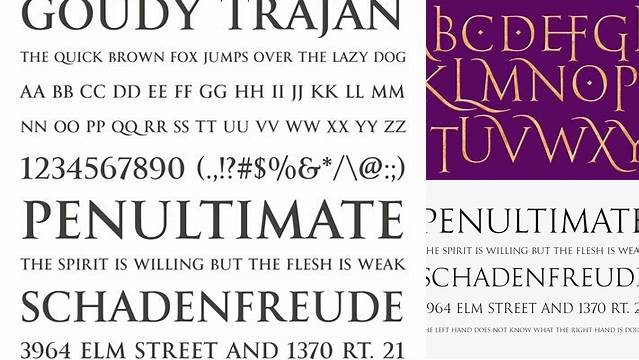
Goudy Trajan font free download is a popular choice for designers, typographers, and anyone looking to add a touch of classic elegance to their projects. This article will guide you through everything you need to know about the Goudy Trajan font, including where to find a free download, its history, and how to use it effectively. So, if you're looking for a font that exudes sophistication and timelessness, you've come to the right place, my friends! Let's dive in.
Understanding the Goudy Trajan Font
Before we get into the Goudy Trajan font free download, let's talk about what makes this font so special. Goudy Trajan, as the name suggests, is inspired by the Trajan Column in Rome. This column, built in 113 AD, features inscriptions carved in a beautiful, highly refined style of Roman square capitals. The font captures the essence of these inscriptions, making it a perfect choice for projects that require a classic and historical feel. The font is characterized by its clean lines, serifs, and balanced proportions. It's a versatile font that can be used in a variety of contexts, from headings and titles to body text (though it's generally best for display purposes). The design of the font is a testament to the enduring appeal of Roman typography. The meticulous attention to detail in the original Trajan inscriptions is mirrored in the font, giving it a sense of authority and elegance. This is why it remains a favorite among designers. It is not just a font; it's a connection to history and a statement of refined taste. When you choose Goudy Trajan, you're not just picking a typeface; you're embracing a legacy of design excellence. It's a fantastic choice for branding, where a sense of tradition and quality is essential. The font's legibility and aesthetic appeal ensure your message is conveyed with both clarity and style. So, whether you are crafting a logo, designing a website, or creating print materials, Goudy Trajan is an excellent option to consider. This font is more than just a visual element; it communicates a story, evoking feelings of heritage, trust, and timelessness. The font is very well-suited for use in projects such as wedding invitations, book covers, and historical documentaries, where a sense of authenticity and classic style is paramount. The crispness of the characters makes it highly readable, even at a distance, which is very critical for those who are using it as a display font. Goudy Trajan also offers great flexibility. The font comes in various weights and styles, providing designers with a wide range of options to suit different design needs. It is very important to choose the right weight and style of the font to achieve the desired effect. This adaptability makes it a valuable asset for any designer. Furthermore, because of its timeless design, Goudy Trajan never goes out of style. This is important in the fast-changing world of design, where trends come and go quickly. This font will stay relevant, ensuring your designs remain fresh and appealing for years to come. The use of this font will show the quality that you are looking for. Choosing Goudy Trajan is choosing quality.
Using Goudy Trajan Effectively
So, you've got your Goudy Trajan font free download and now you're wondering, how do I use it? Goudy Trajan is a great font, but it's important to use it correctly to maximize its impact. Here are some tips:
- Choose the Right Context: Goudy Trajan works best for headlines, titles, and short blocks of text. It's not typically ideal for body text, as its serifs and slightly condensed form can make it less readable in large paragraphs. Use it for projects where you want to make a bold statement. The font has an authoritative presence, making it perfect for titles or short sections.
- Consider Kerning and Tracking: Pay close attention to kerning (the space between individual letters) and tracking (the overall space between letters in a word or line). Adjusting these can significantly impact readability and the overall appearance of your text. You might need to tighten the kerning to get the best results, especially at larger sizes.
- Pair with Other Fonts: Goudy Trajan can pair well with a variety of fonts. Try pairing it with a clean, sans-serif font for body text. This contrast can create an interesting and visually appealing design. Experiment with different font combinations to find what works best for your project. A good pairing can elevate your design to the next level!
- Color and Background: The color and background play a critical role in how the font is perceived. Dark text on a light background or vice-versa often works best for readability. Make sure there is enough contrast between the font and background to make it easy to read. Think about the mood you're trying to create. The font will stand out and create an impact.
- Legibility: Always make sure your text is legible, particularly in digital design. In print design, the context in which your design is used will affect the legibility. Consider the viewing distance. At what distance is the reader going to see the font? It's important to keep in mind how your audience will consume the content. Keep the design simple, clear, and easy to read. Before you start a project, experiment with the font. Try out different sizes, weights, and pairings to see how Goudy Trajan can work for you. When you're ready to get started, choose the weight and style that best suits your project. You can create a brand image and tell a great story with this font. Make sure you have the right balance between text and imagery. Consider the overall visual appeal of your project. This is critical in design. The use of Goudy Trajan is an opportunity to create unique visual experiences.
Conclusion: Embrace the Timelessness of Goudy Trajan
Goudy Trajan font free download remains a favorite among designers for its elegance and timeless appeal. From finding a free download to effectively using the font, this guide has covered everything you need to know. Remember to always download fonts from trusted sources and check the licensing terms before using them. When used correctly, Goudy Trajan can elevate your designs, adding a touch of classic sophistication and a sense of history to your projects. So, go ahead, guys, explore the world of Goudy Trajan and see how it can transform your creative endeavors! The font is a great choice. Choose the font that fits your needs and design goals. Happy designing!